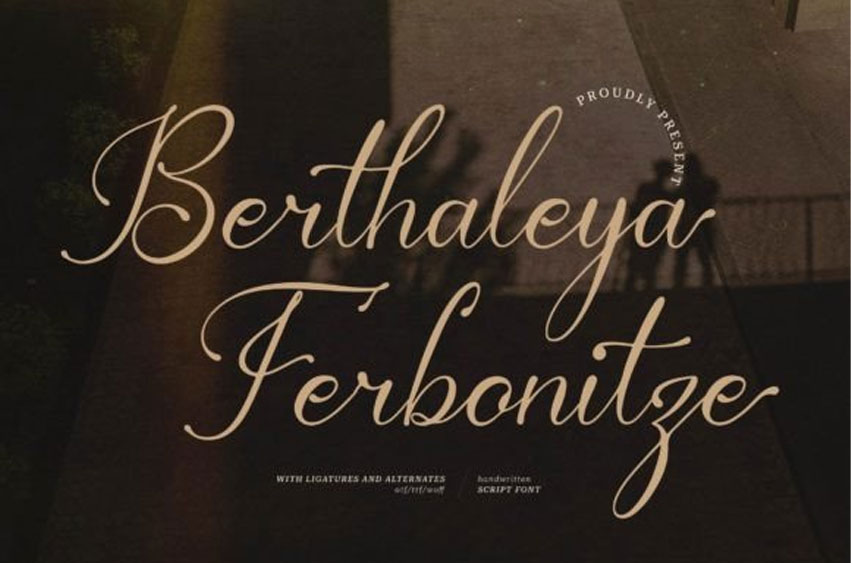
Berthaleya Ferbonitze Font
Berthaleya Ferbonitze Font Calligraphy is suitable for any project such as logos, branding projects, homeware designs, product packaging, mugs, quotes, posters, shopping bags, t-shirts, book covers, name cards, invitation cards, greeting cards, labels, photography, watermark, special events, and all your other lovely projects that need a beautiful script taste.